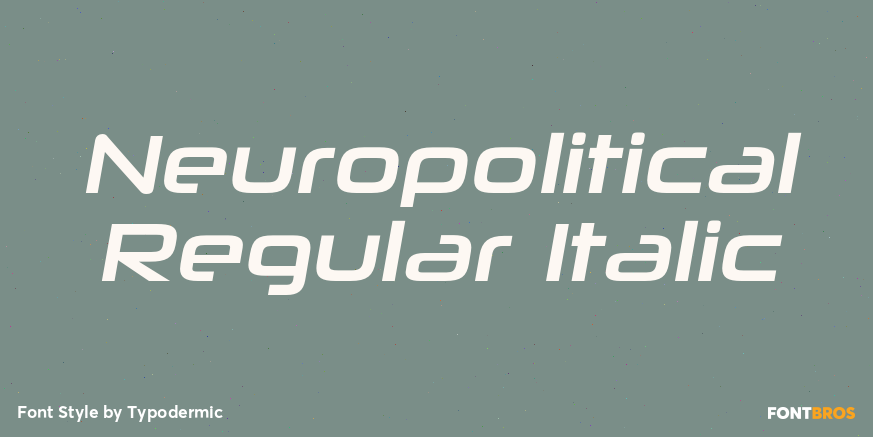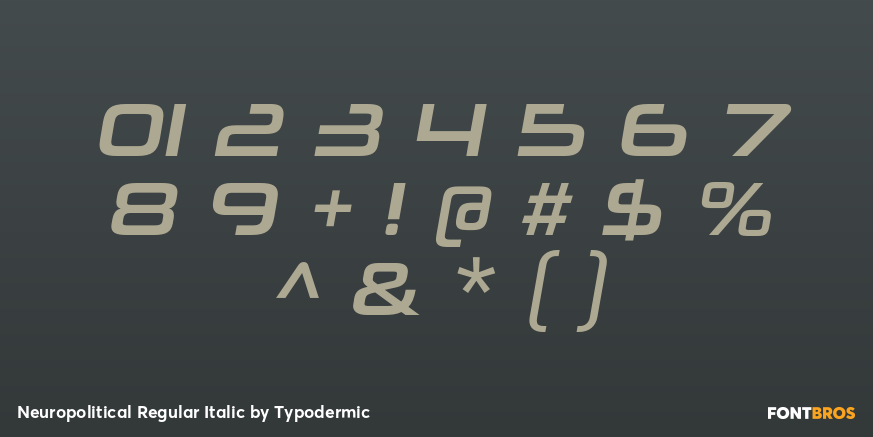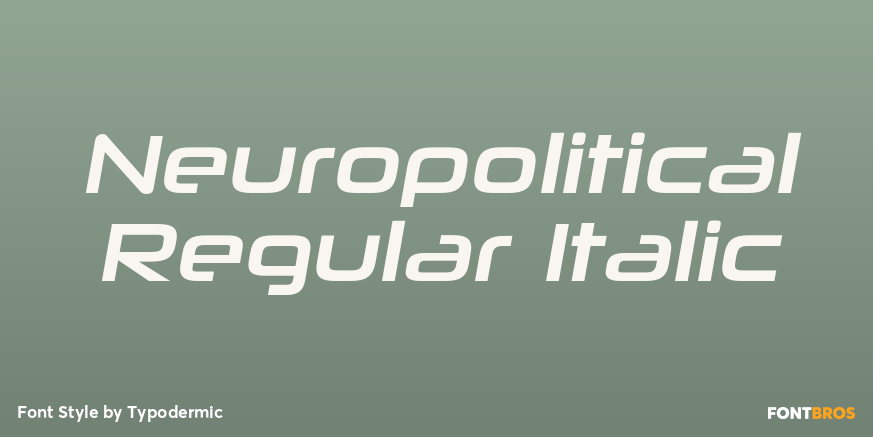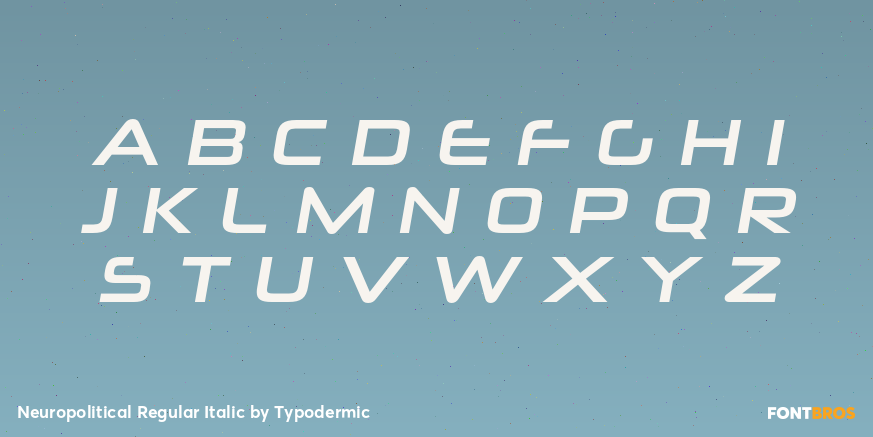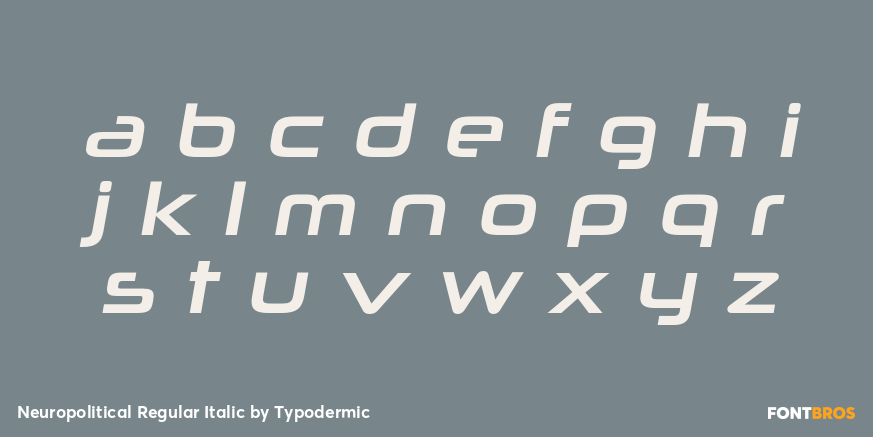
Neuropolitical Regular Italic
Buy NowTechnology products often get trapped between two typographic extremes. Rounded geometric faces can make advanced hardware feel soft, nostalgic, or conspicuously Y2K; aggressive futuristic lettering can make a real product look like a prop. Neuropolitical sits between them. Its broad square construction and flat terminals keep the technological signal obvious, while the forms remain restrained enough for equipment that already exists rather than a future somebody is trying to imagine.
That makes Neuropolitical particularly useful for robotics and autonomous systems. Warehouse robots, inspection platforms, agricultural robotics, delivery hardware, drones, machine-vision systems, robotic arms, and service robots all need names, model hierarchies, and launch graphics that communicate technology without slipping into science fiction. Neuropolitical can carry robot model names, product-series lettering, enclosure graphics, decals, demonstration-area signage, trade-show walls, training headings, and promotional video titles.
Professional audio, video, broadcast, and stage equipment provide another strong territory. Synthesizers, DJ hardware, mixing consoles, audio interfaces, spatial-audio systems, video processors, lighting controllers, stage automation, and broadcast equipment need typography that works naturally on hardware fascias, control surfaces, rack units, packaging, dealer displays, and exhibition graphics.
Computing and mobility hardware suit the same approach. AI accelerators, edge-computing appliances, network hardware, industrial PCs, GPU enclosures, EV charging hardware, cycling computers, racing telemetry, simulator equipment, marine electronics, and performance-data systems often carry several layers of naming: platform, series, generation, model, and performance tier. Neuropolitical’s seven weights and matching italics make it possible to build that hierarchy without abandoning the visual language after the main badge.
Commercial aerospace, drone systems, satellite hardware, avionics, eVTOL platforms, and flight-training equipment can use Neuropolitical for system names, hardware markings, conference graphics, technical presentation headings, and launch material. Sports technology such as timing systems, motion tracking, cycling electronics, golf launch monitors, training sensors, and athlete-analysis hardware fits for similar reasons.
Neuropolitical began as a straighter-edged response to Neuropol, replacing rounded terminals with flat ones and developing that harder geometry into a larger family. The result is more severe and matter-of-fact: unmistakably technological, but less dependent on the friendly retro-futurism associated with rounded techno lettering.